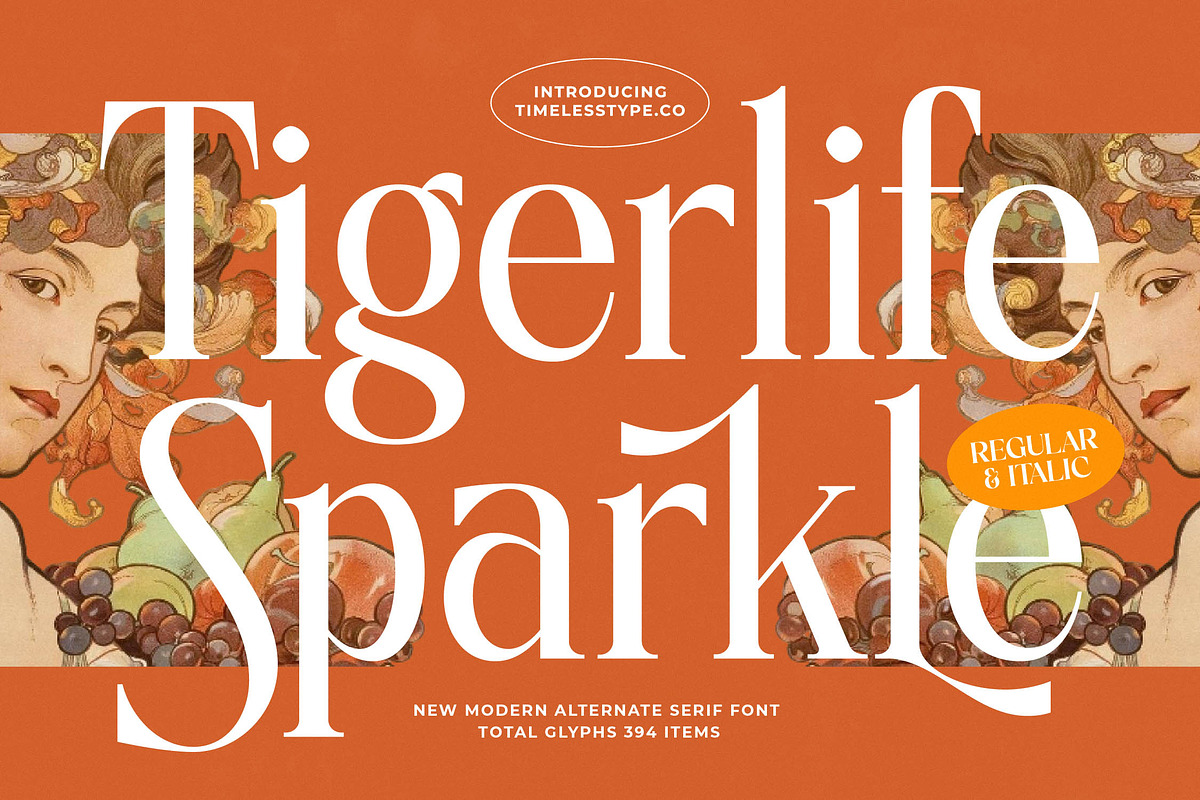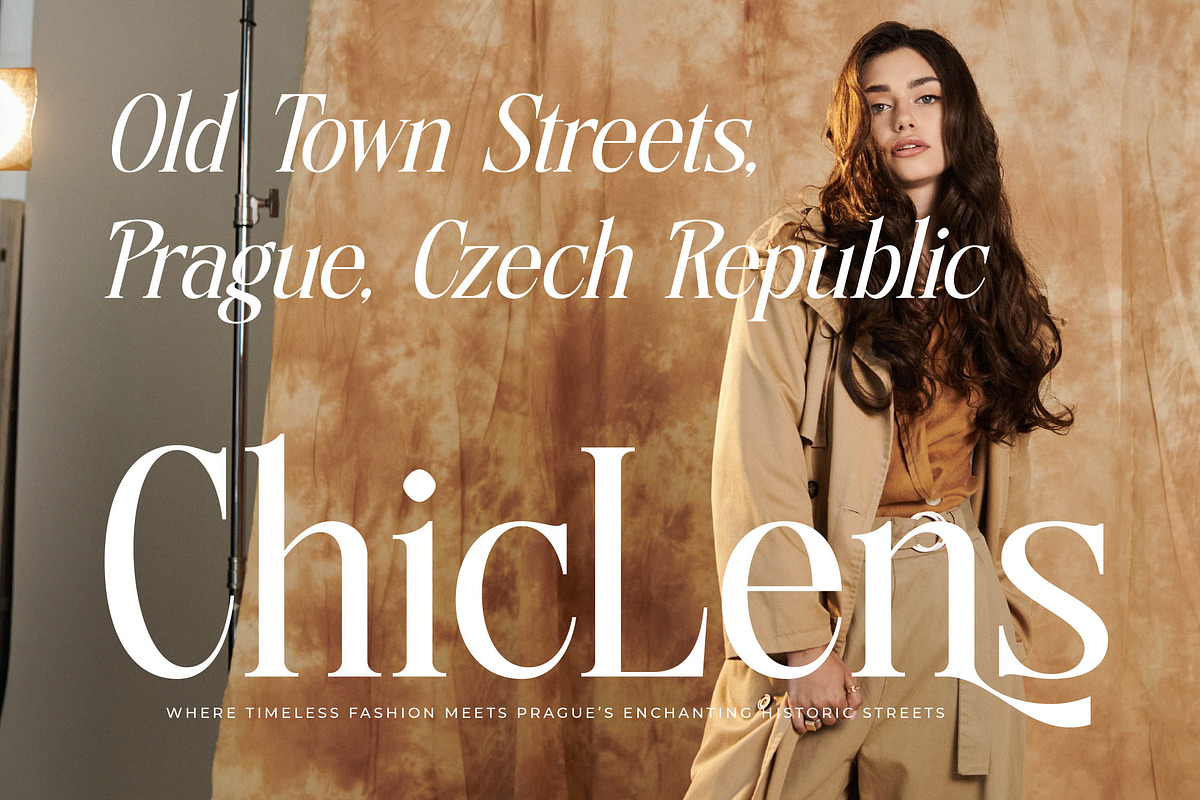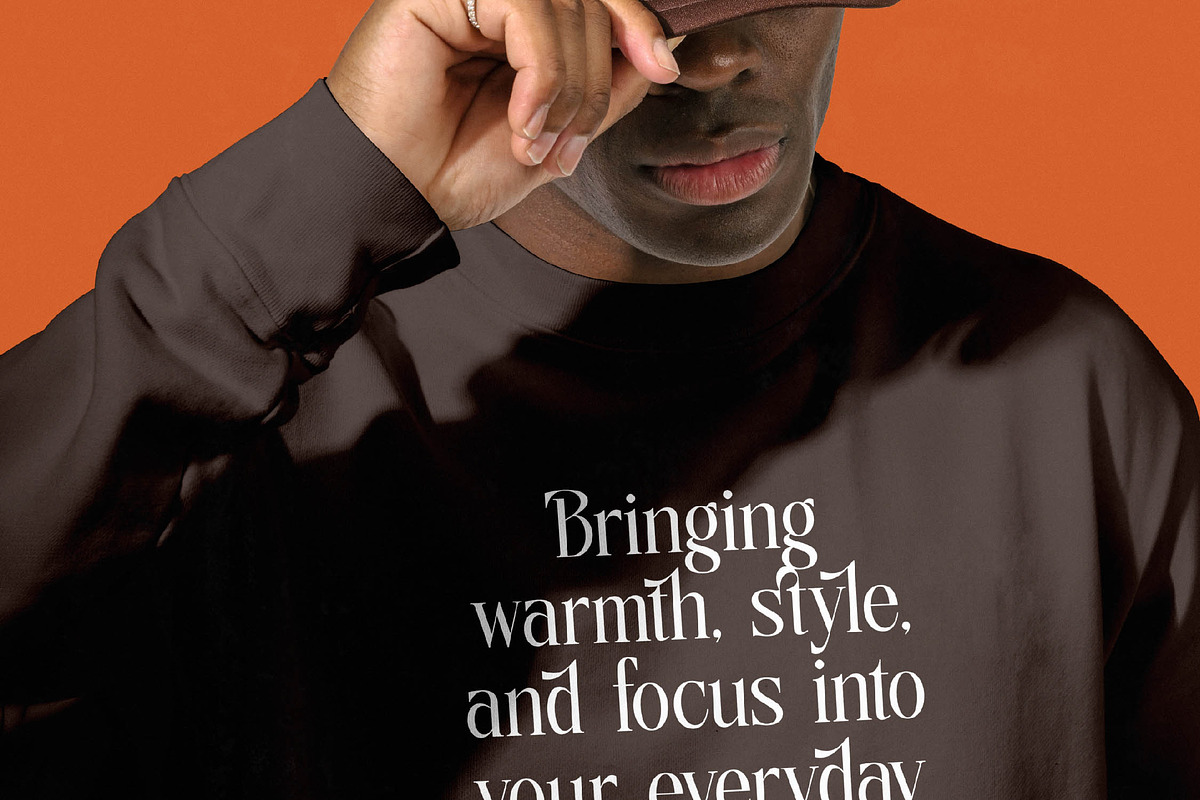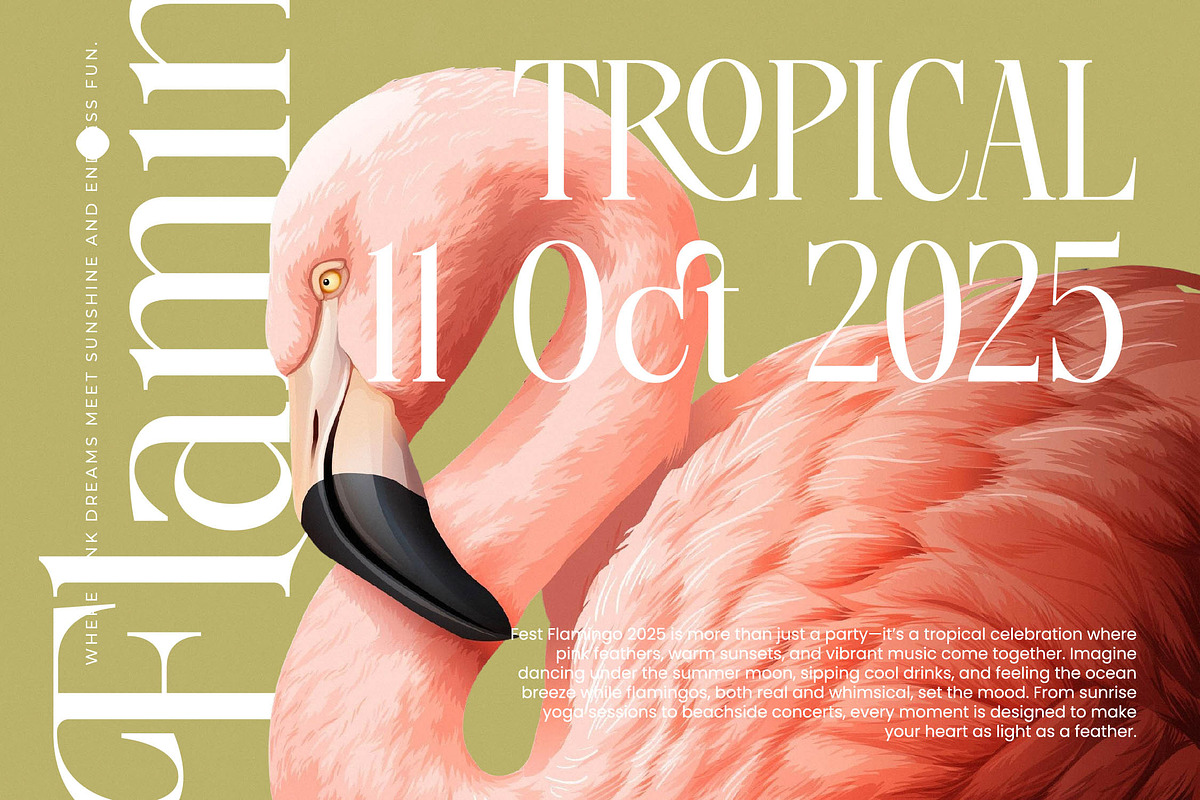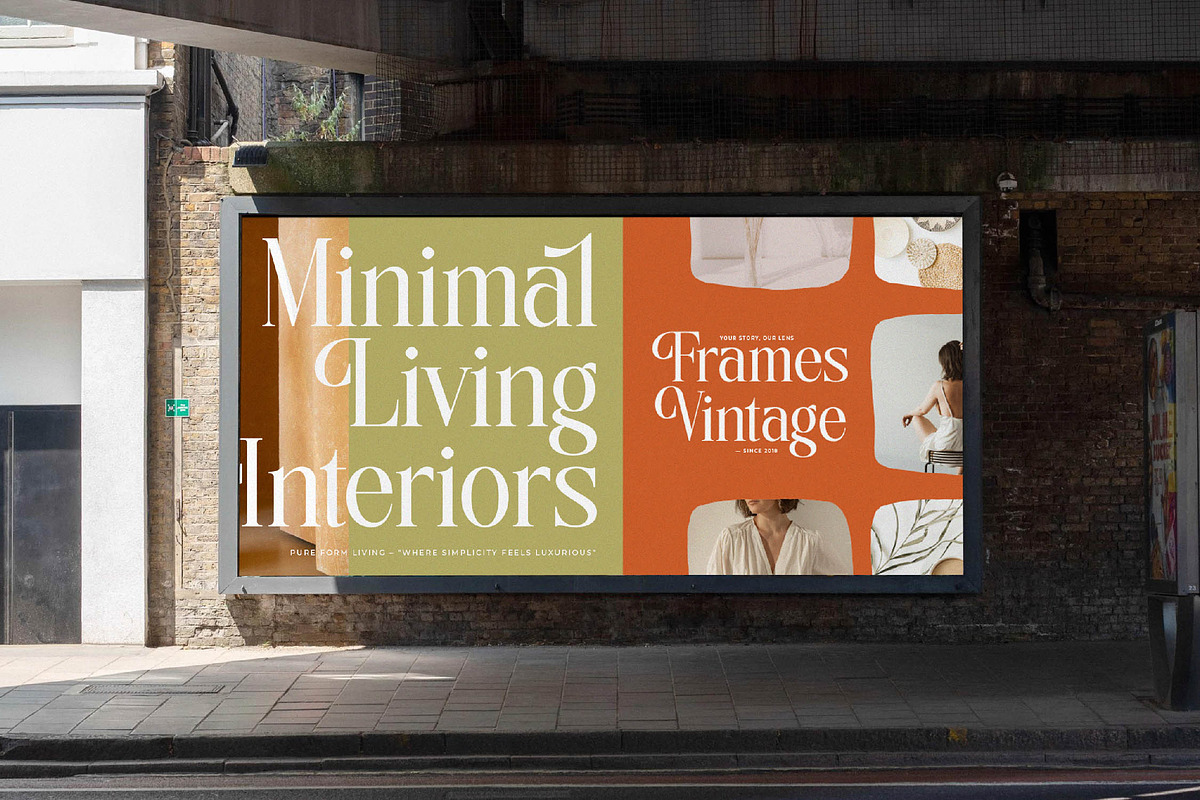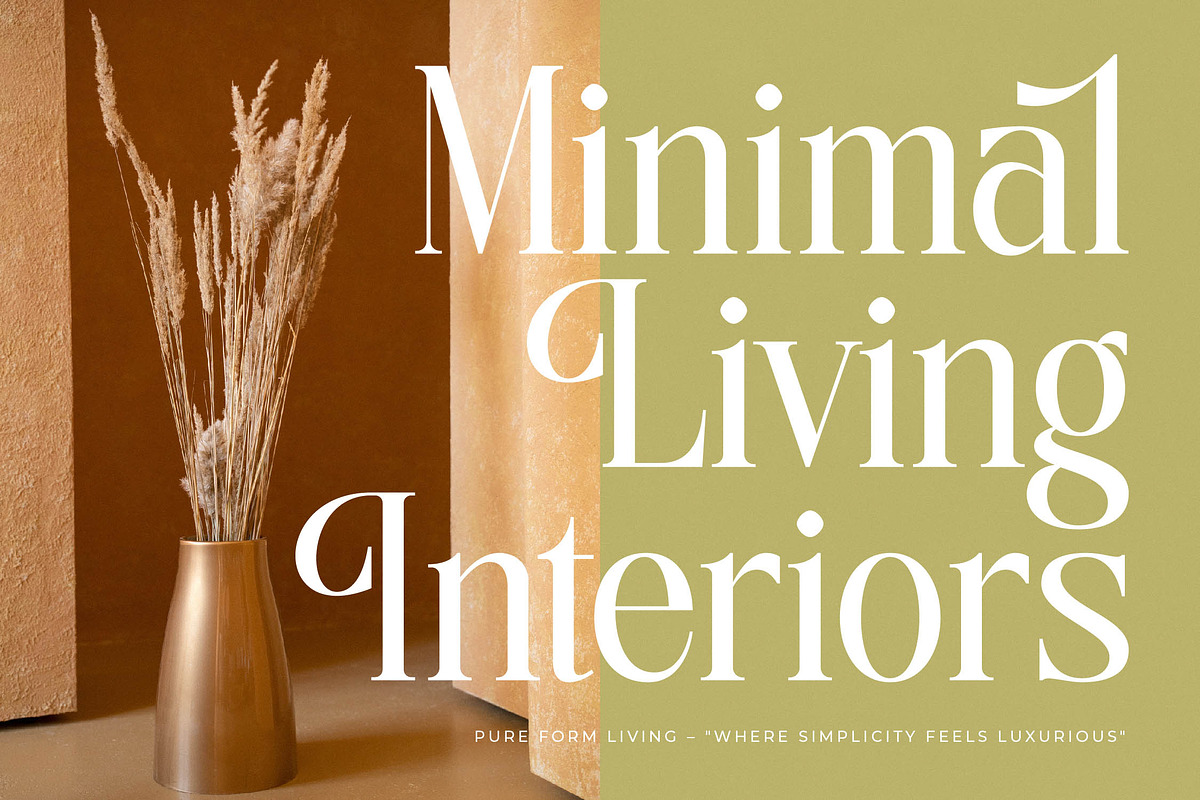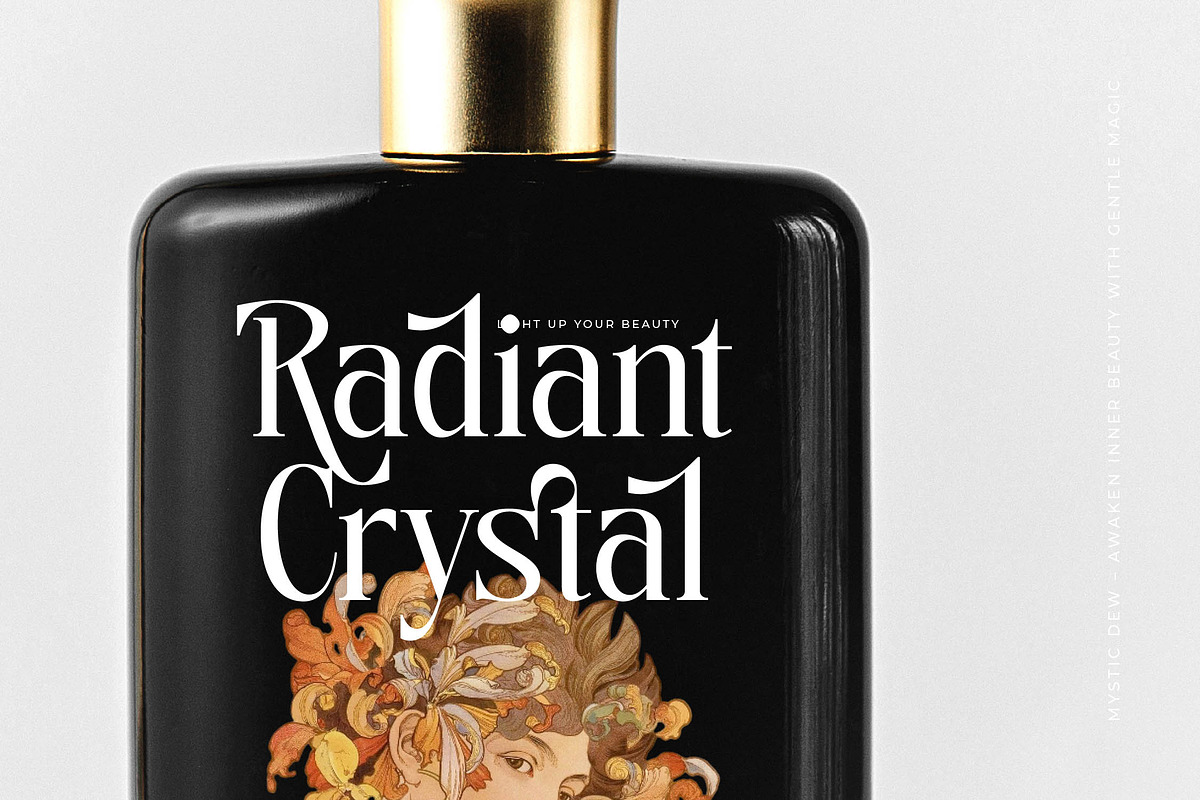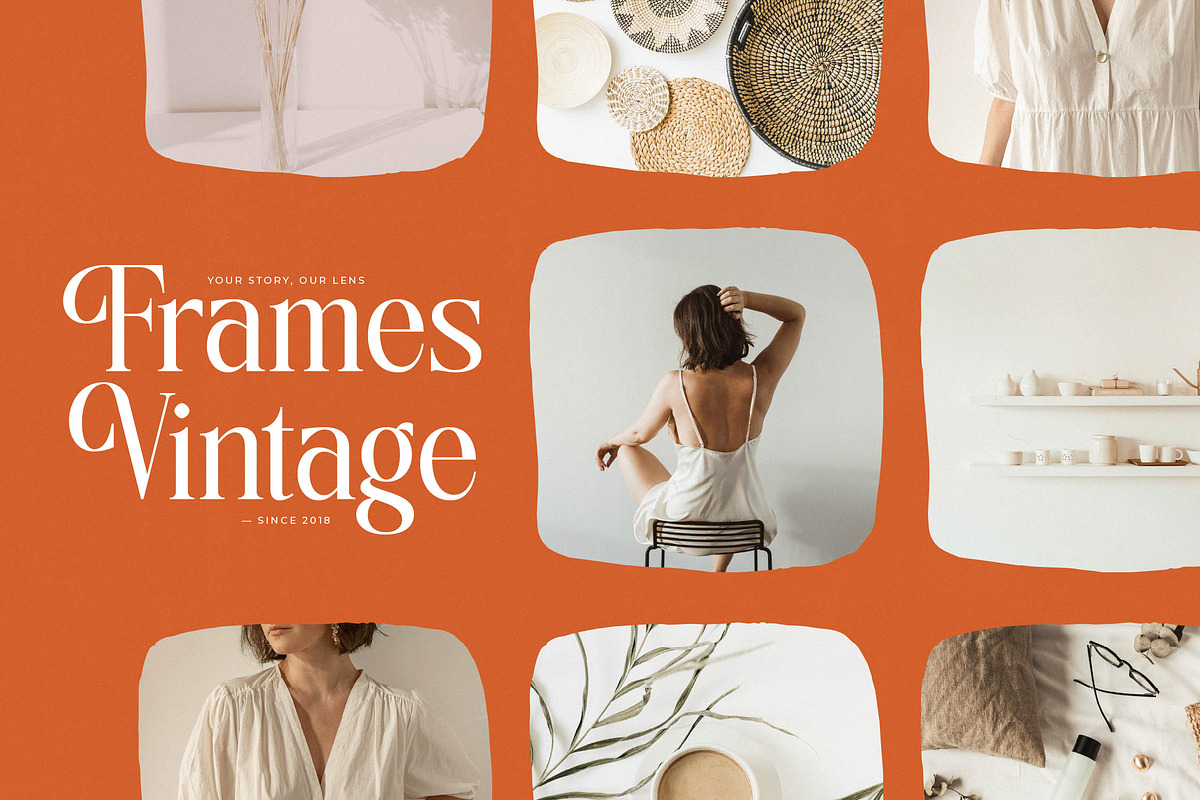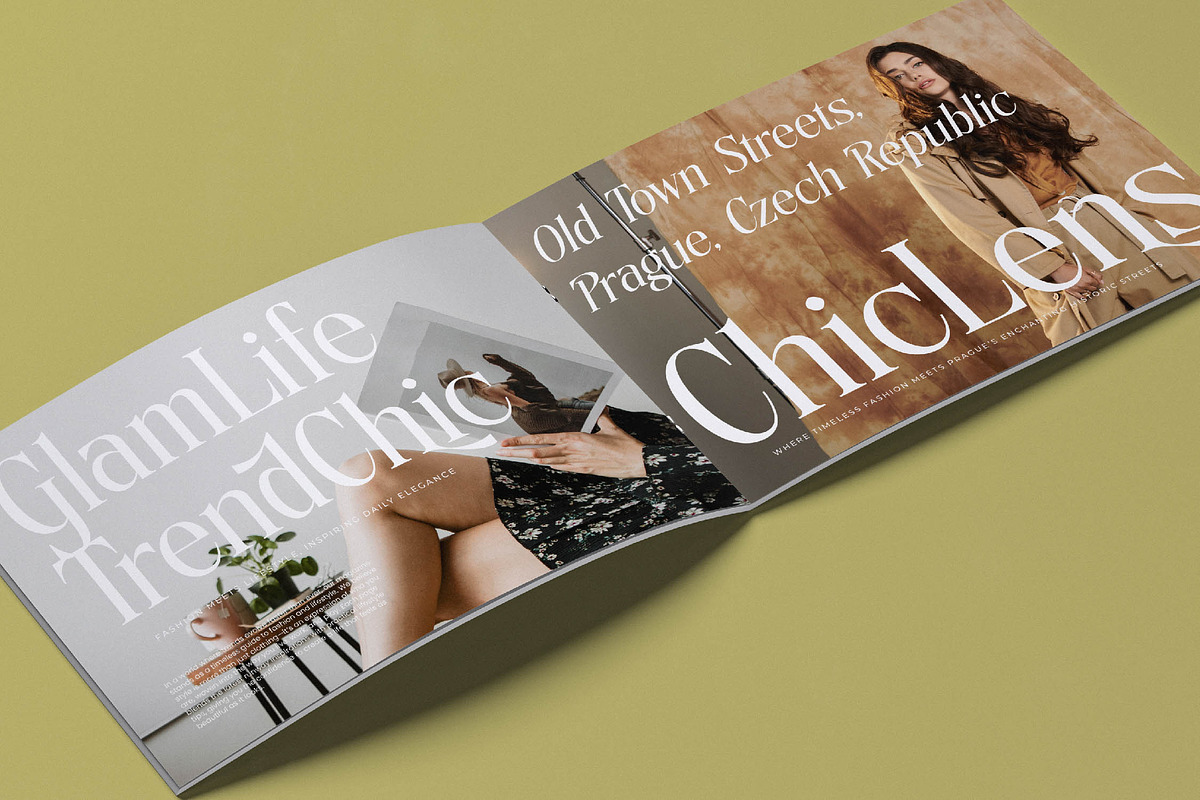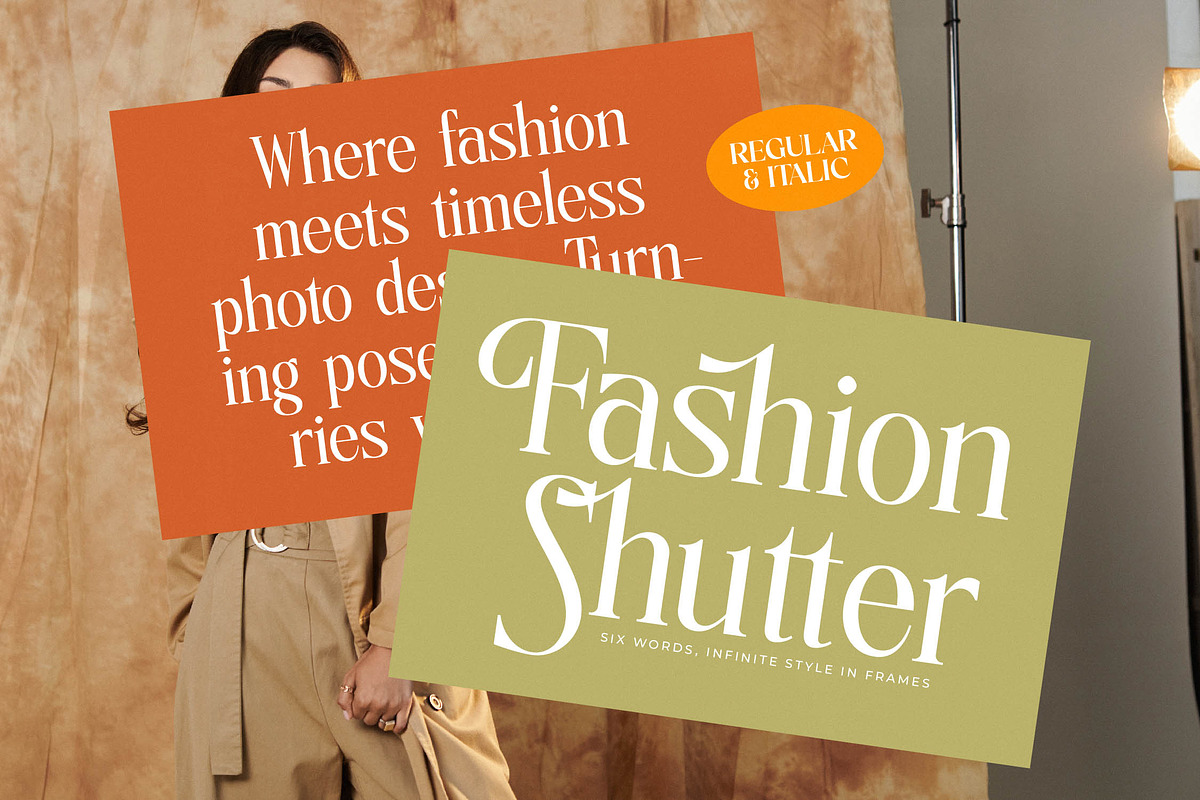
Tigerlife Sparkle Modern Serif
Tigerlife Sparkle is an exquisite display of typographic elegance that brings a touch of celestial brilliance to every design project. This typeface balances classic proportions with a contemporary flair, ensuring your headlines command the attention they truly deserve.
Inspired by the timeless allure of classical art and the bold geometry of mid-century fashion magazines, this font captures a sense of heritage and high-end aesthetics. It evokes an atmosphere of refined luxury, reminiscent of sun-drenched European villas and oil-painted masterpieces.
With its sharp terminals and graceful curves, this modern serif display offers a unique luxury typography experience for creators who value detail. The high-contrast serif strokes provide a rhythmic flow that creates a significant branding impact, making it an essential editorial font for sophisticated layouts.
Perfectly aligned with the current modern serif trend, this typeface meets the demand for character-driven typography in a crowded digital landscape. As editorial display fonts continue to dominate high-end visual identity projects, its versatility ensures it remains a staple in your creative toolkit.
Whether you are crafting a standout logo design or developing a cohesive branding suite, this font excels in packaging and high-end fashion spreads. Its romantic undertones also make it a premier choice for wedding invitations and luxury stationary that requires a touch of artisanal grace.
The family includes both regular and italic styles, featuring over 394 glyphs including creative ligatures, alternates, and decorative swashes. With comprehensive multilingual support and a vast array of international characters, it provides the technical depth needed for global design projects.
- Ligature 20 Alternate 43